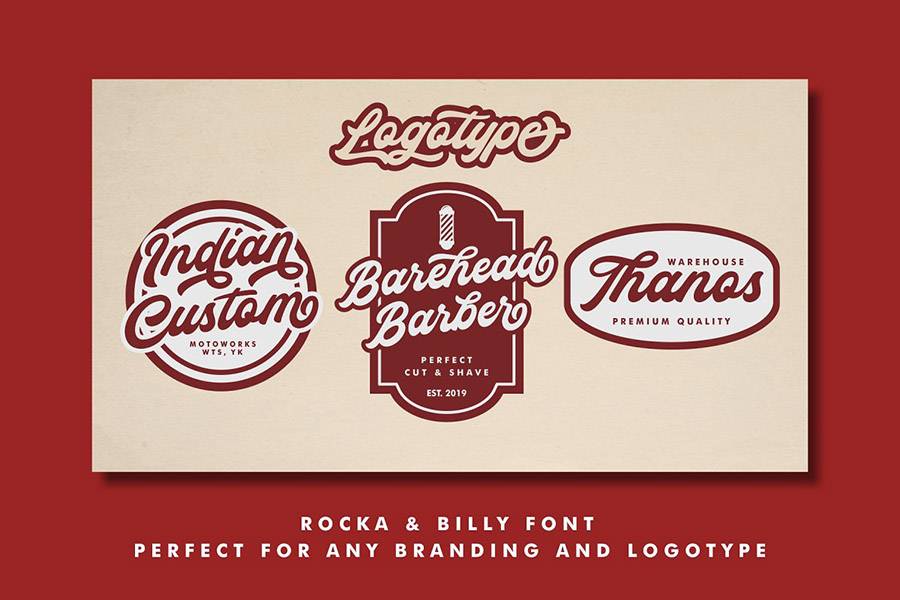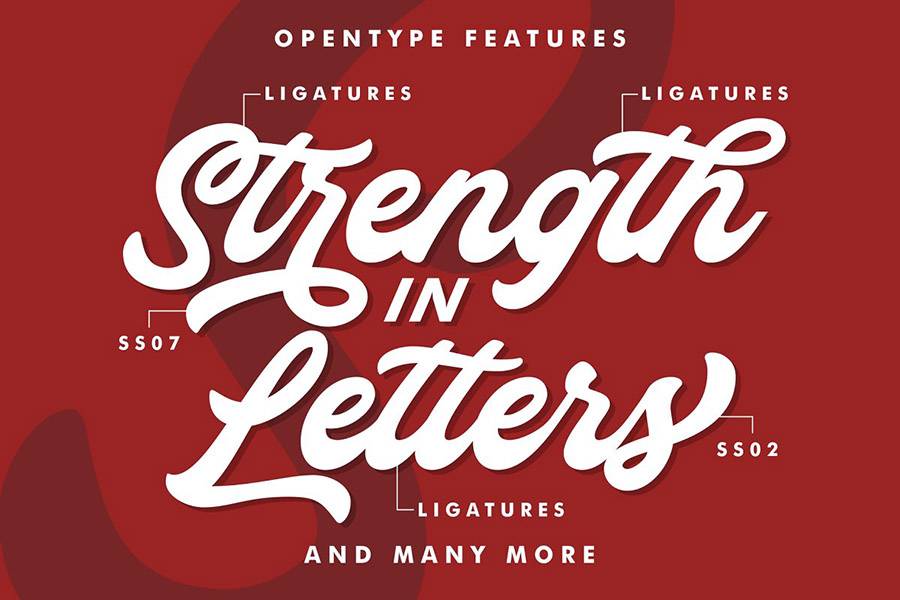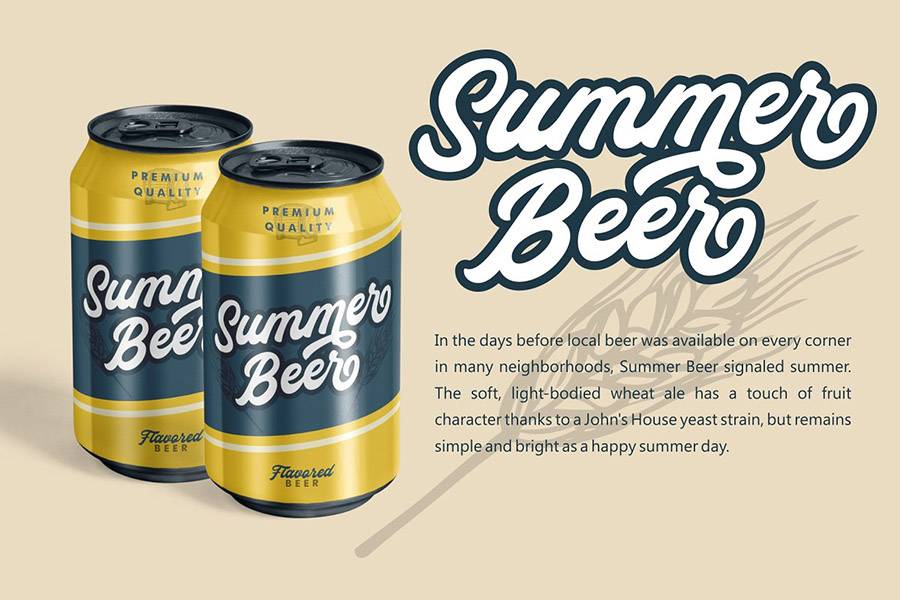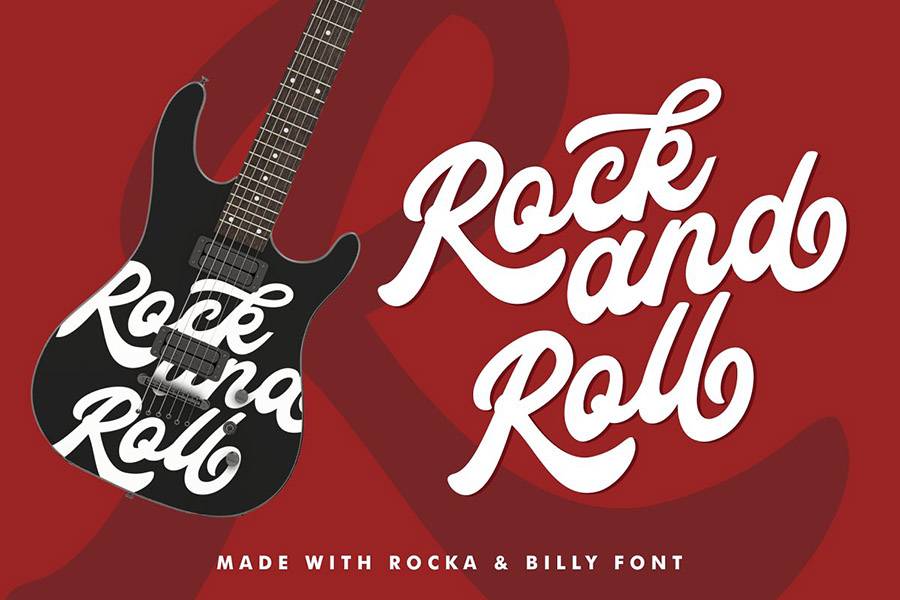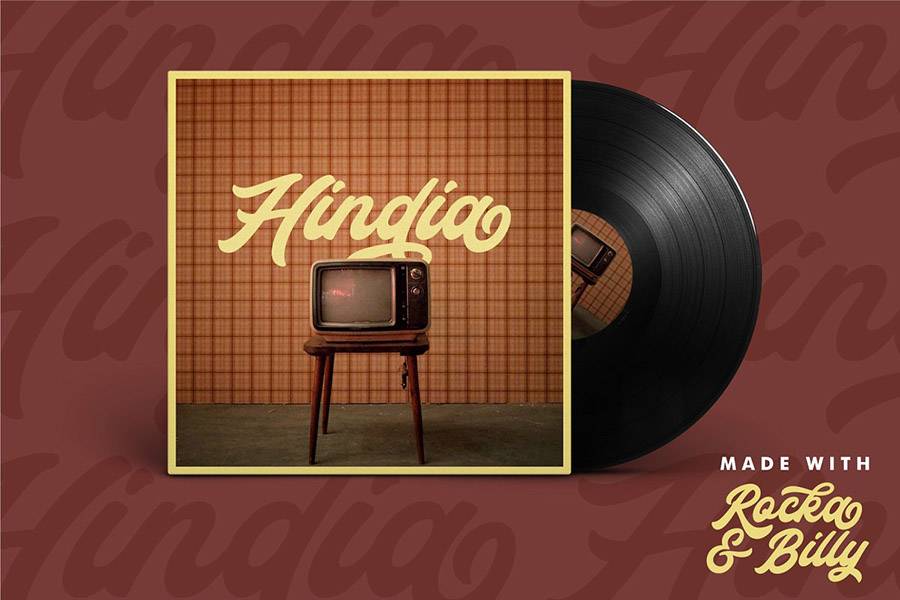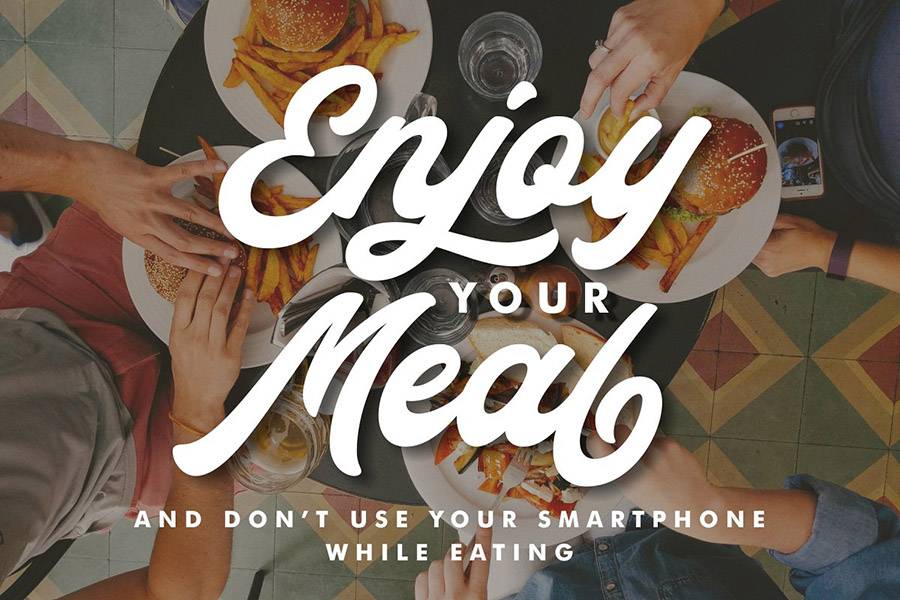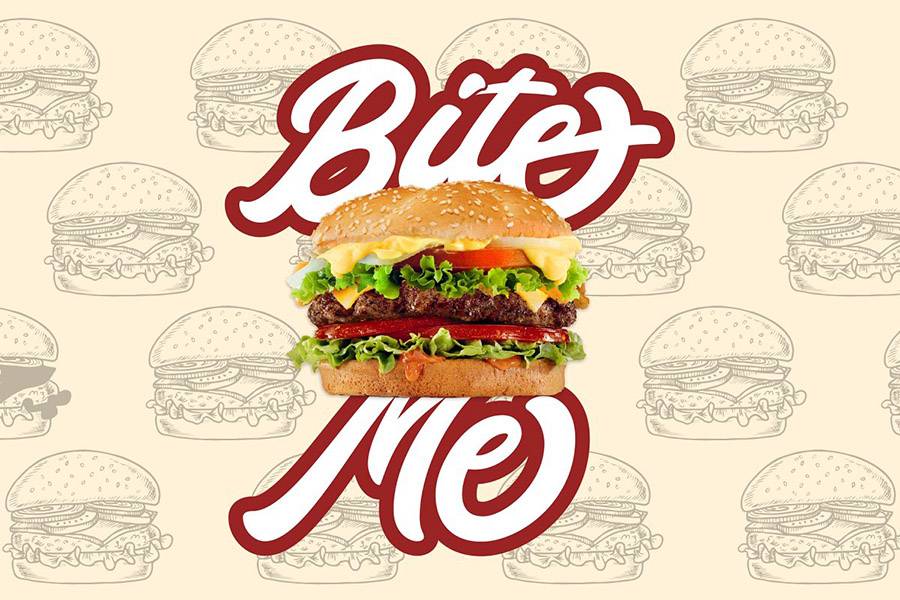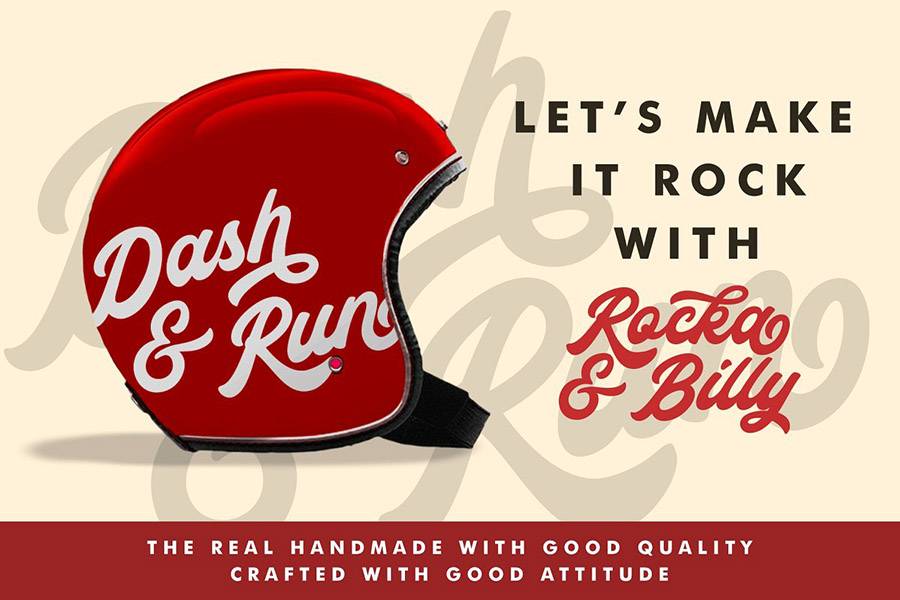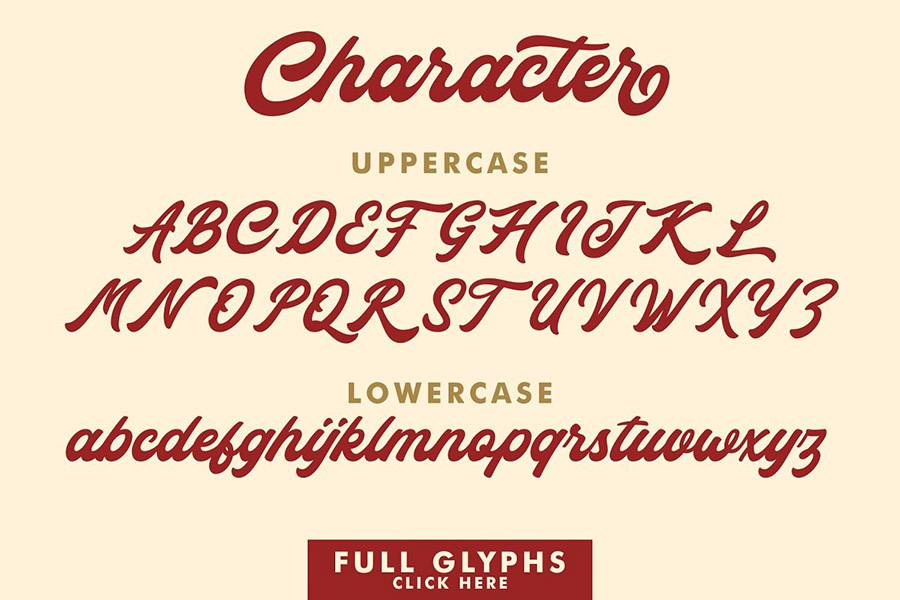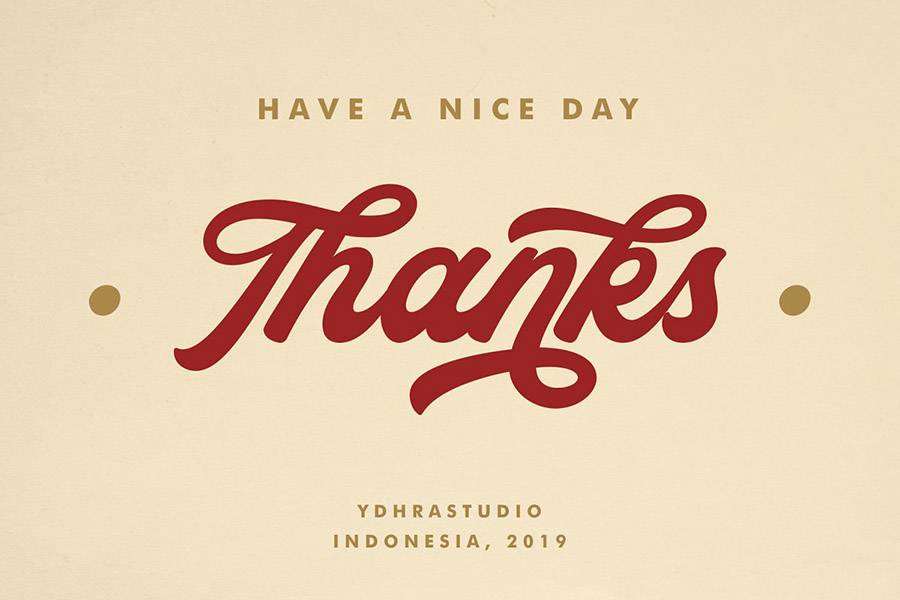
Rocka and Billy is a bold, script-style font with a smooth, flowing design that combines a vintage charm with modern warmth. Its thick strokes and rounded, connected letters make it perfect for eye-catching logos, headlines, and branding that aim to convey a friendly yet stylish personality. This font works especially well in creative, retro-inspired designs where a lively and approachable feel is desired.
Rocka and Billy Font Demo
About Rocka and Billy Font Demo
| Font family | Rocka and Billy Font Demo |
| Release date | 2019-05-01 |
| Designer | Yudha Rahmat Ageng |